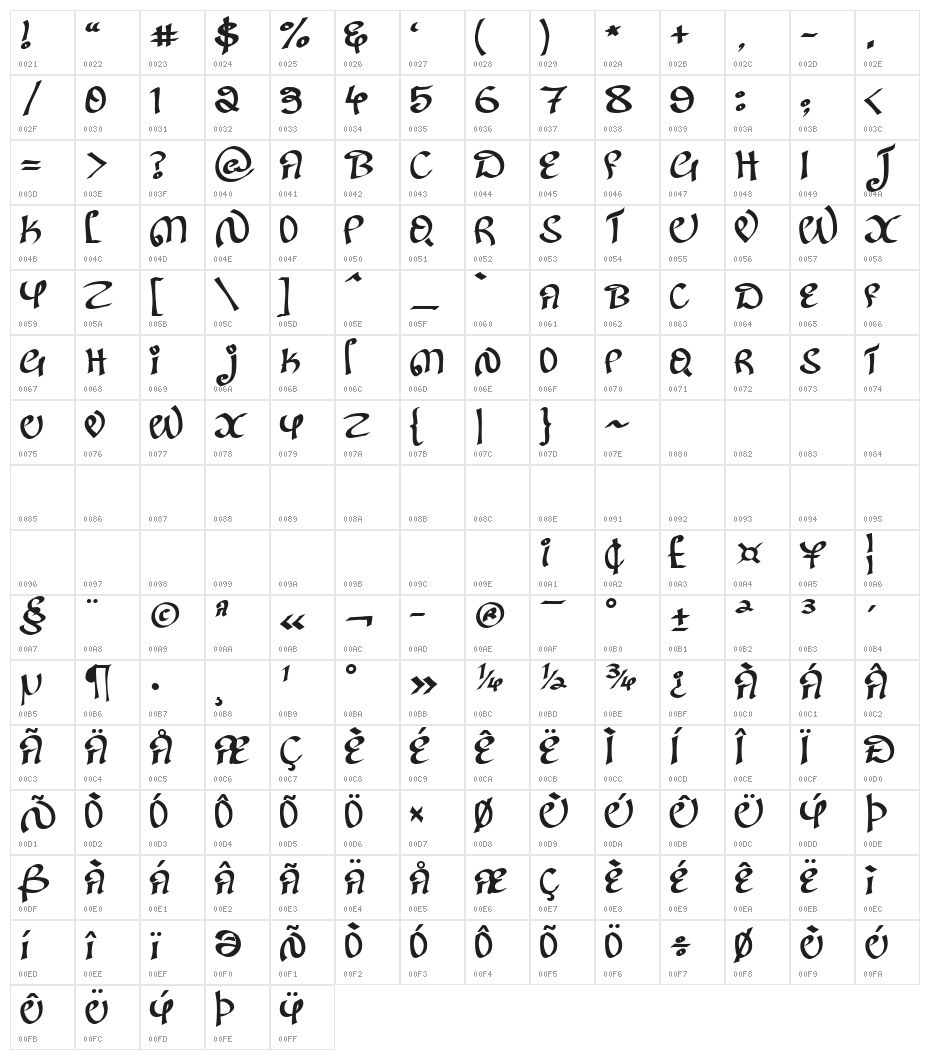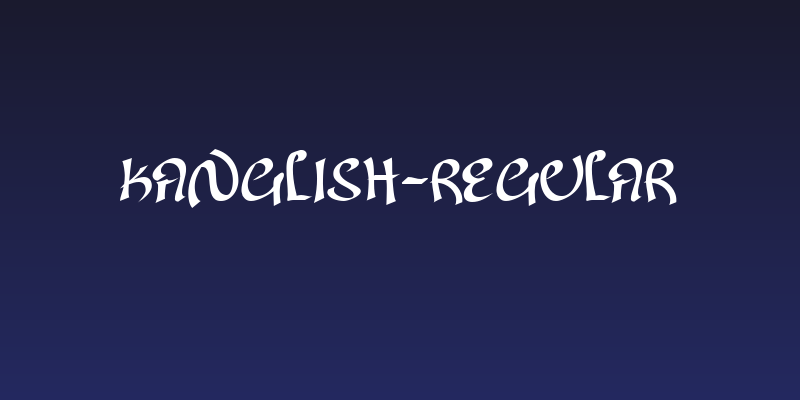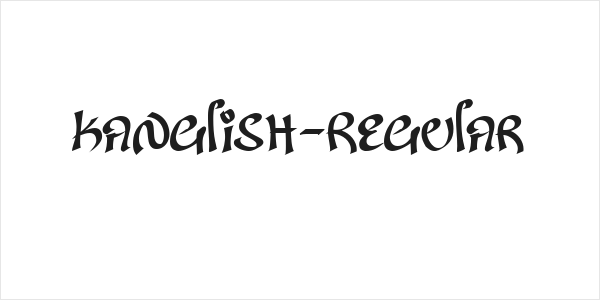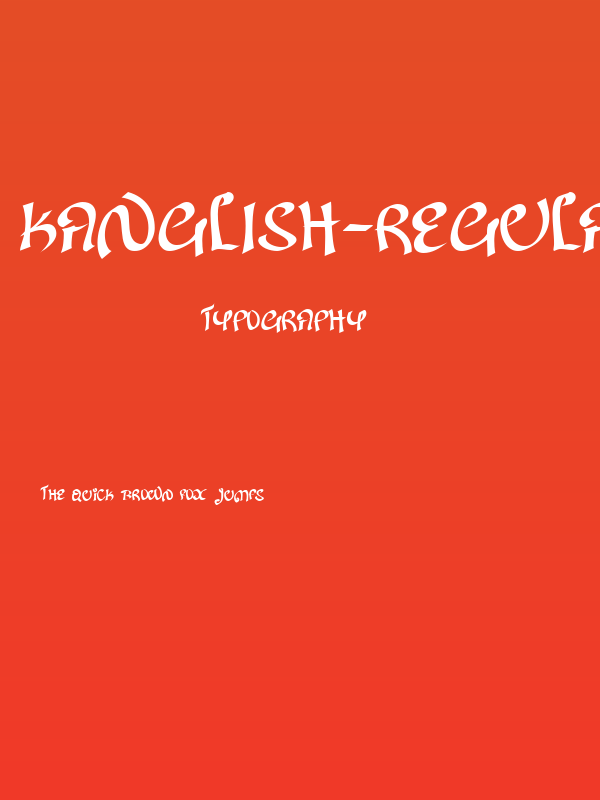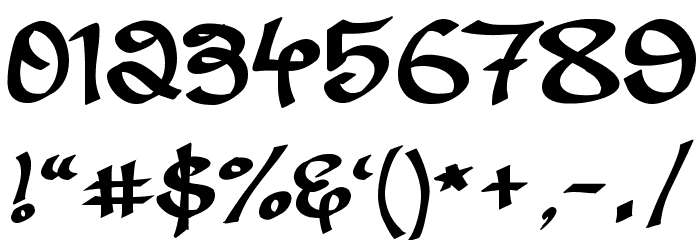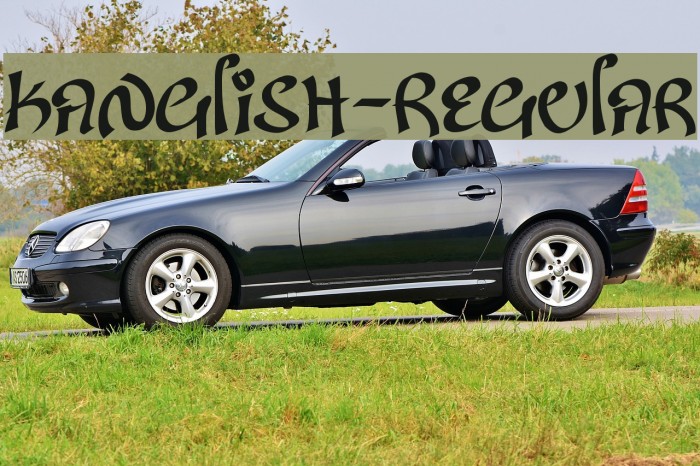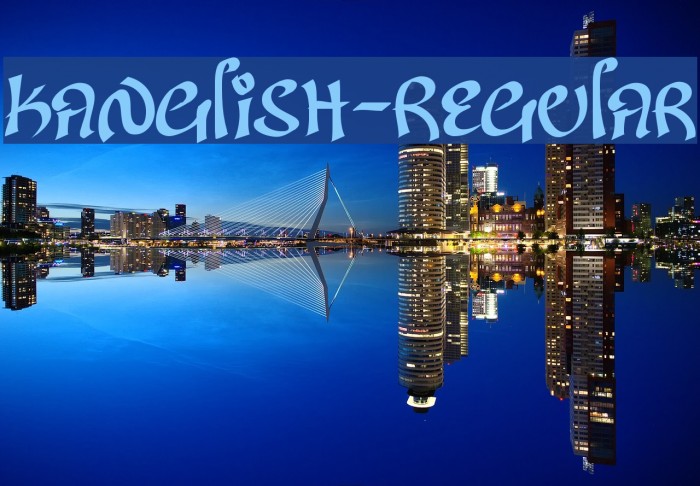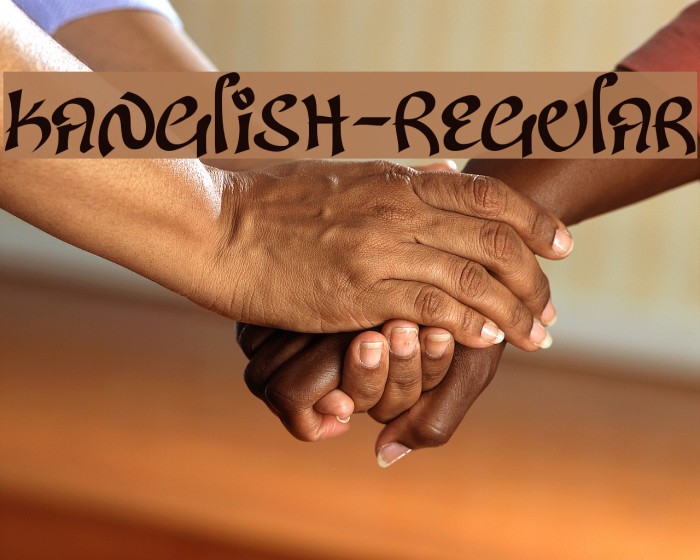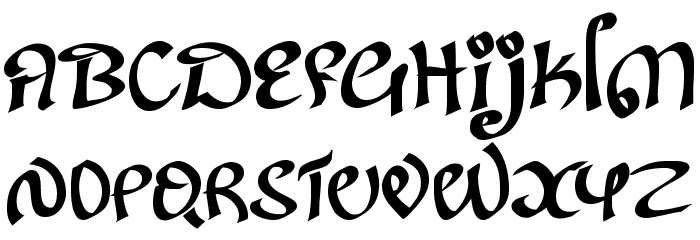
Kanglish-Regular Font
Kanglish-Regular Description
This font features a bold and dynamic style with a strong presence. The characters exhibit a unique blend of angular and curved elements, creating a sense of movement and energy. The uppercase letters are particularly striking, with exaggerated serifs and flourishes that add a decorative touch. The lowercase letters maintain a consistent style, complementing the uppercase with their own flair. Numbers and special characters are designed to match the overall aesthetic, ensuring a cohesive look across all text. The font's boldness and distinctive style make it ideal for attention-grabbing designs.
| Proposed Projects | This font is perfect for projects that require a strong visual impact, such as posters, logos, and branding materials. It can also be used for headlines in magazines or websites that aim to convey a sense of creativity and energy. |